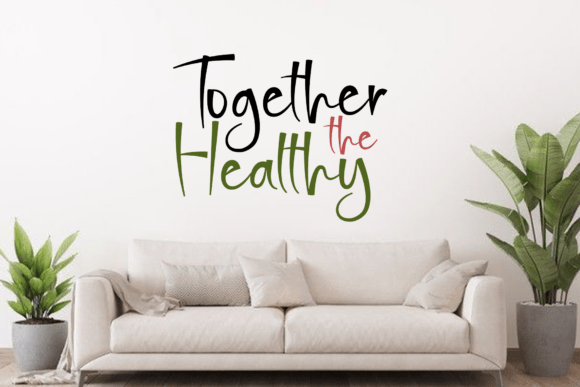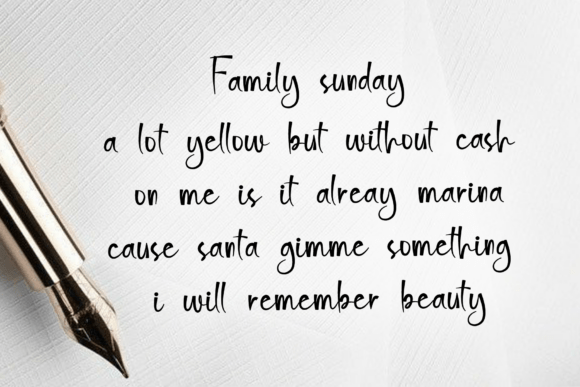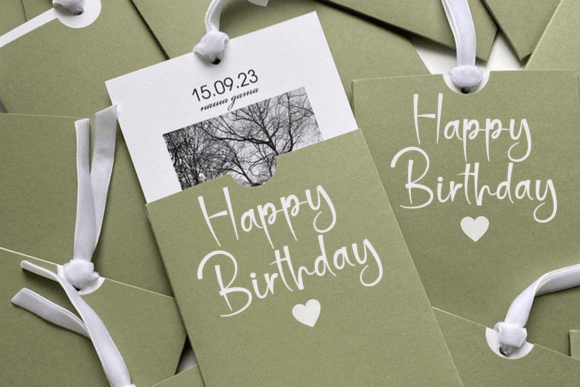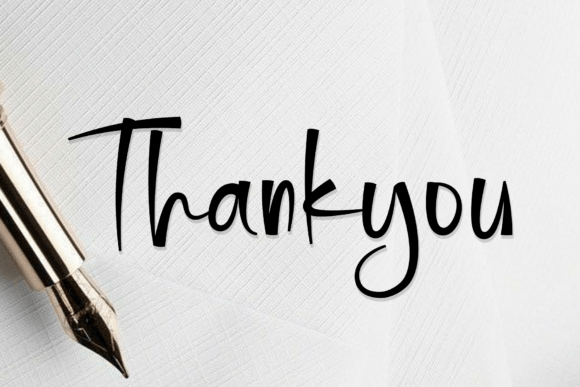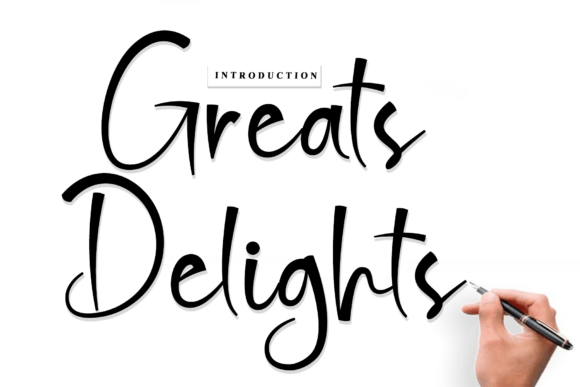
Introducing Greats Delights Font: Elevate Your Brand with Sophistication and Whimsy
In the world of typography, few fonts manage to strike a balance between elegance and playfulness. Greats Delights Font is one such exceptional typeface that combines the sophistication of calligraphy with the warmth of organic aesthetics. This beautifully crafted script font is designed to add a touch of artisanal charm to any design project, making it a premier choice for creative professionals and crafters alike.
The Distinctive Features of Greats Delights Font
So, what sets Greats Delights apart from other script fonts? The answer lies in its distinctive, sweeping ascenders that loop and curve with a rhythmic fluidity. These elegant strokes evoke a sense of hand-crafted artistry, as if each letter was carefully penned by a skilled calligrapher. The result is a font that exudes a sense of customized, small-batch charm that’s perfect for brands looking to stand out in a crowded market.
Ideal Applications for Greats Delights Font
Greats Delights Font is a versatile typeface that can be used in a variety of creative projects. Some of the most suitable applications include:
- Artisanal Food Branding: Add a touch of gourmet sophistication to your food brand’s packaging, labels, and marketing materials.
- Boutique Product Packaging: Elevate your luxury product’s packaging with a font that conveys high-end quality and attention to detail.
- Upscale Lifestyle Marketing: Use Greats Delights to create eye-catching titles and headings for marketing campaigns targeting discerning audiences.
- Creative Editorial Titles: Add a dash of personality to your editorial content with a font that’s both elegant and whimsical.
Why Designers and Crafters Love Greats Delights Font
Greats Delights Font has quickly become a favorite among designers and crafters due to its unique combination of style and versatility. Here are just a few reasons why:
- Unique Character: Greats Delights offers a distinctive look that sets it apart from more traditional script fonts.
- High-Quality Typography: With its clear, precise lines and carefully crafted letterforms, Greats Delights is a font that’s both beautiful and legible.
- Easy to Use: Greats Delights is designed to be user-friendly, making it simple to incorporate into your design workflow.
Tips for Getting the Most Out of Greats Delights Font
To truly make Greats Delights Font shine, consider the following tips:
- Pair it with Contrasting Fonts: Combine Greats Delights with a clean, sans-serif font to create visual interest and hierarchy.
- Experiment with Colors: Greats Delights looks stunning in a range of colors, from rich jewel tones to soft pastels.
- Don’t be Afraid to Get Creative: With its elegant, looping ascenders, Greats Delights is a font that invites creativity and experimentation.
Greats Delights Font is a truly exceptional typeface that offers a unique blend of sophistication and whimsy. Whether you’re a designer, crafter, or simply someone who appreciates beautiful typography, Greats Delights is a font that’s sure to delight. With its sweeping ascenders, elegant letterforms, and versatile design, Greats Delights is the perfect choice for anyone looking to add a touch of artisanal charm to their creative projects.